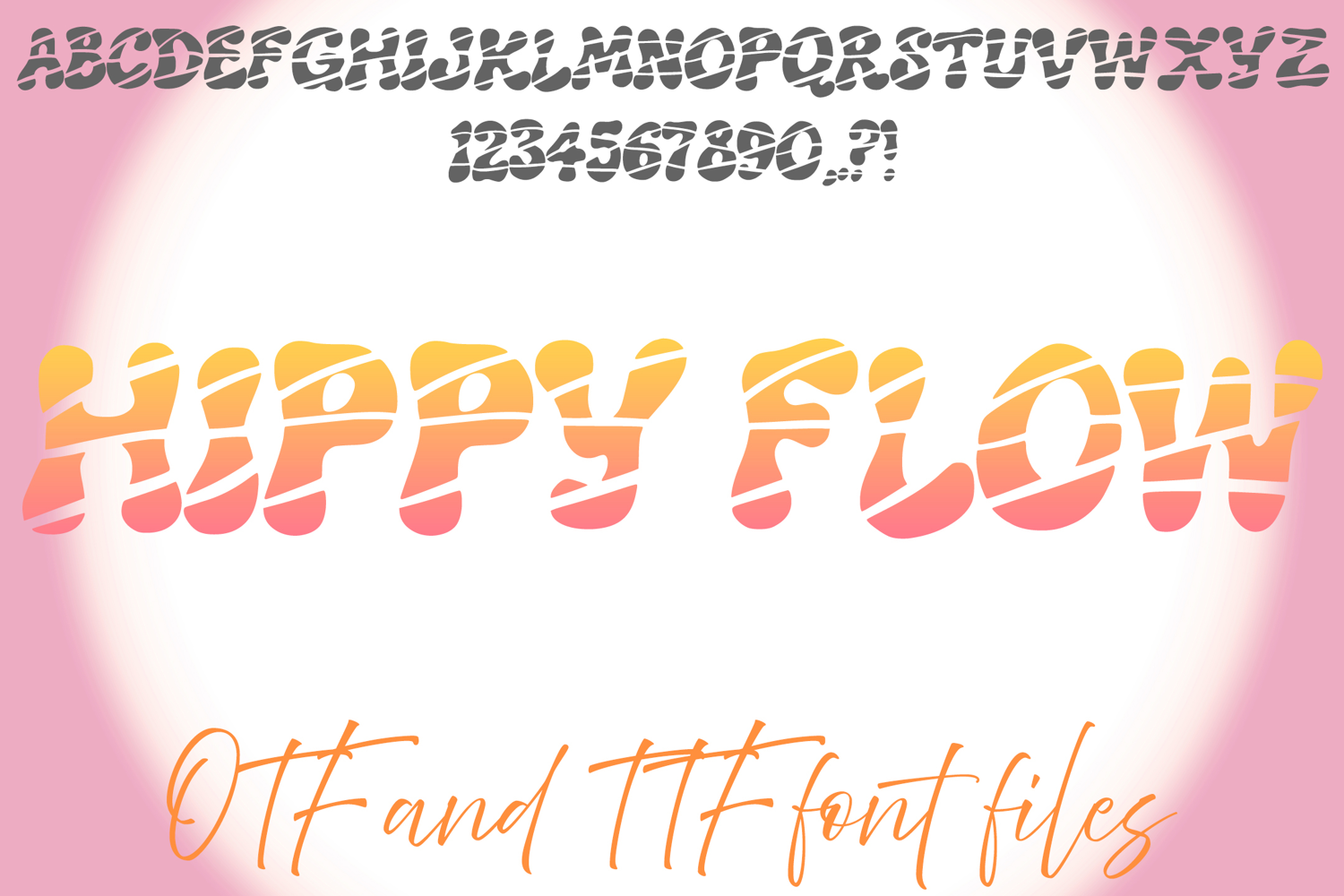
Hippy Flow 60s Typeface Lettering ABC Text Font Wobbly OTF Illustration
A cartoon style font where you can create your own words and colour them to your vision!